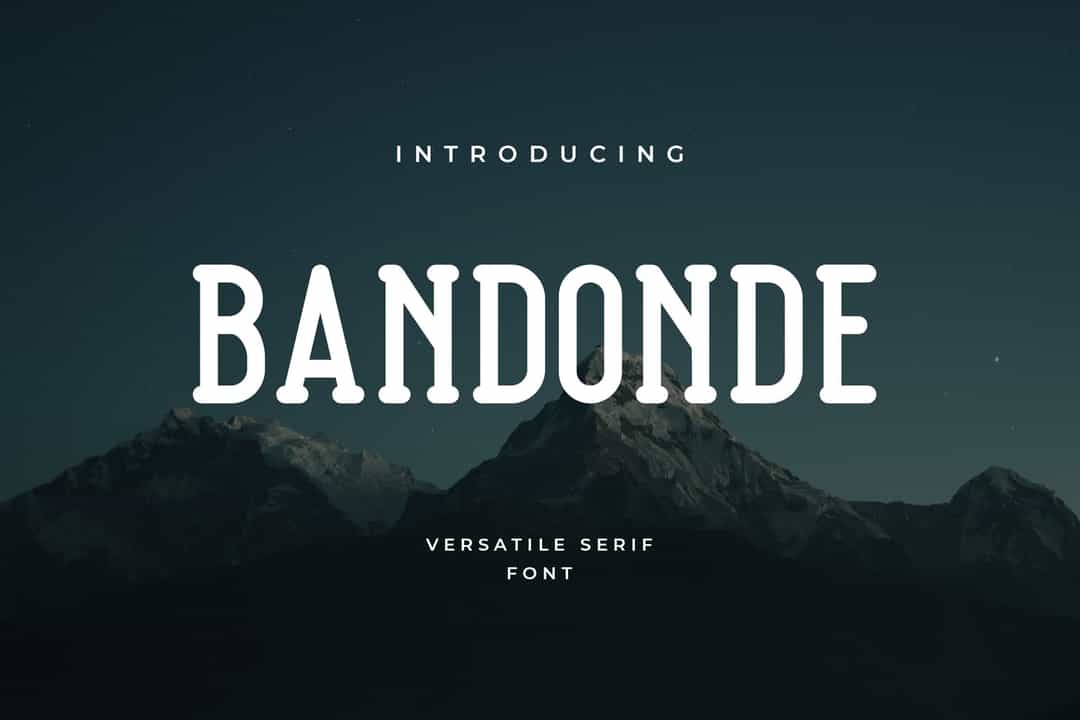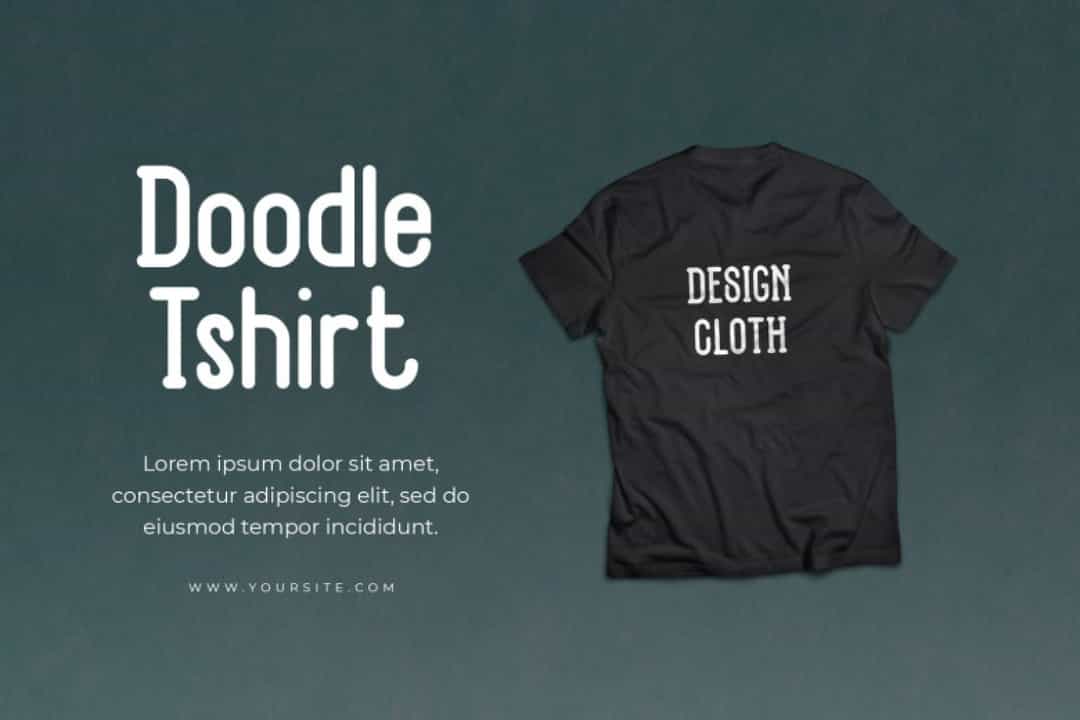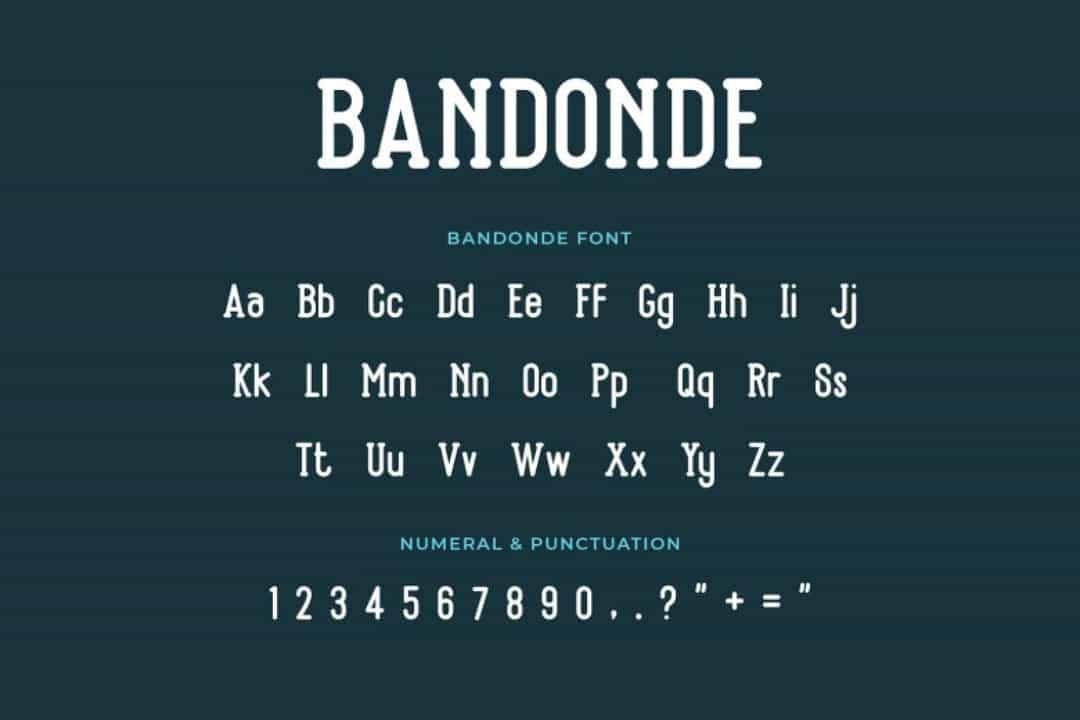
Bandonde is a serif font that is described to fall within the category of decorative serifs. It is a slim theme with a modern and classy serif touch to the font. This font also includes stylistic set, ligature and swash characters that can be turned on or off.